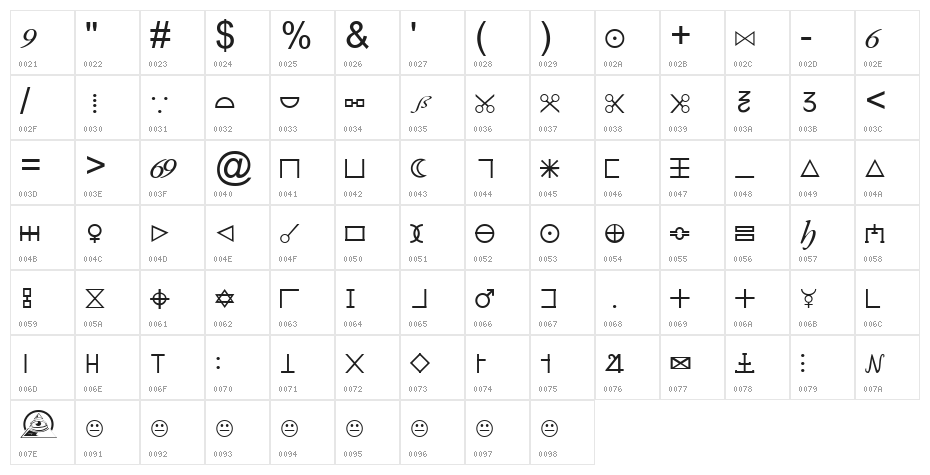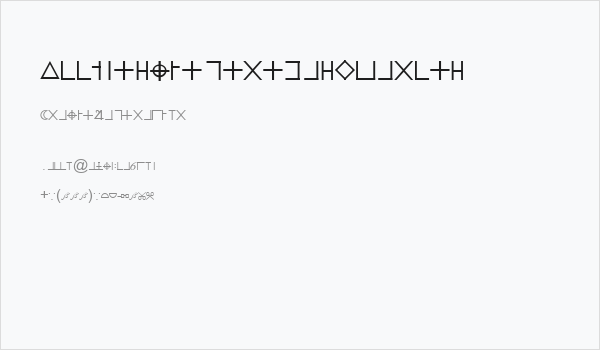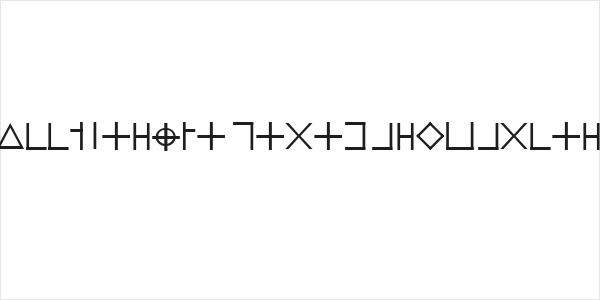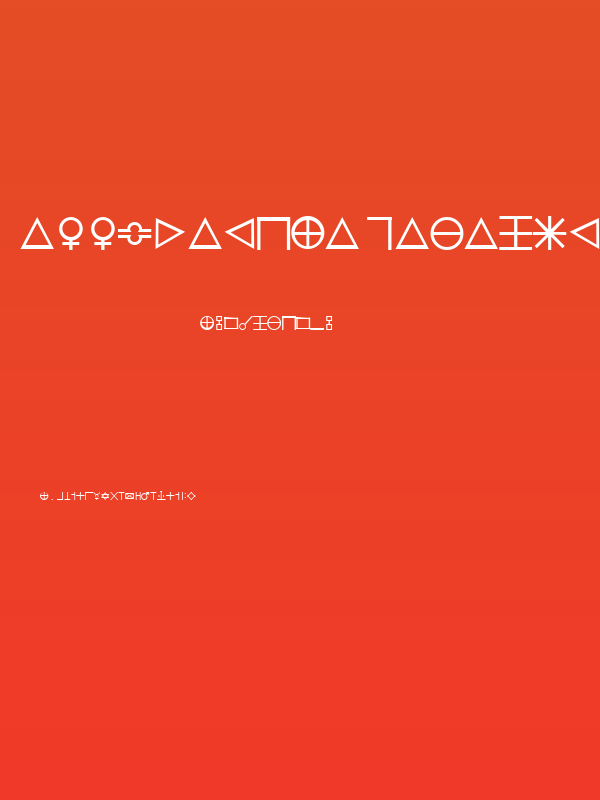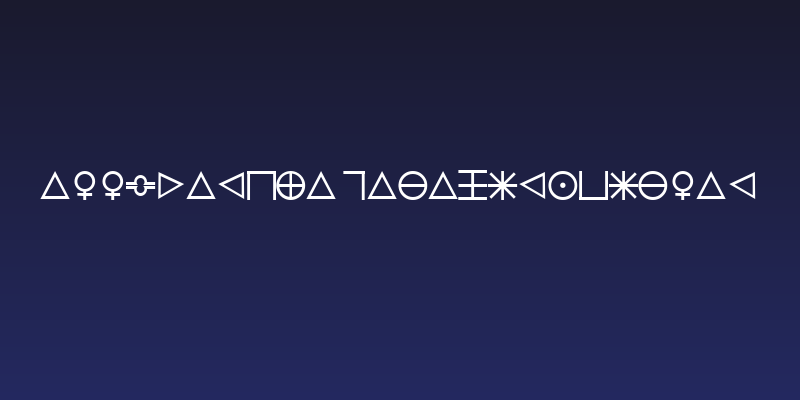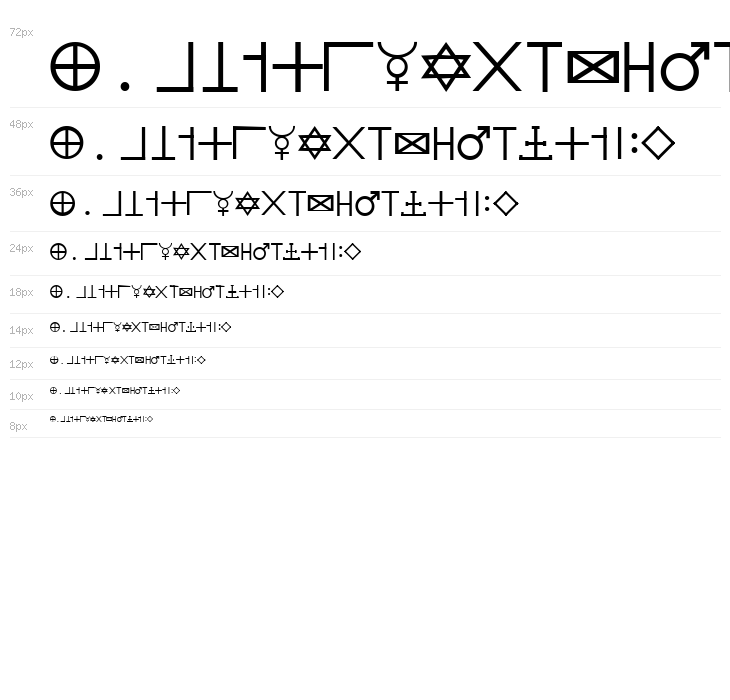
Illuminati Dirigens Berlin Font
Illuminati Dirigens Berlin Description
This is not a valid font. The image contains a series of symbols and shapes that do not correspond to any recognizable alphabet or numerical system. The characters appear to be a collection of geometric and abstract symbols, possibly designed for decorative or artistic purposes rather than practical text representation. There is no discernible pattern or structure that aligns with typical font characteristics such as serifs, strokes, or consistent letterforms.
| Overall Style | Abstract, Artistic |
| Use Case | Artistic designs, Symbolic representation |
| Proposed Projects | Art installations, abstract design projects, or symbolic artwork. |